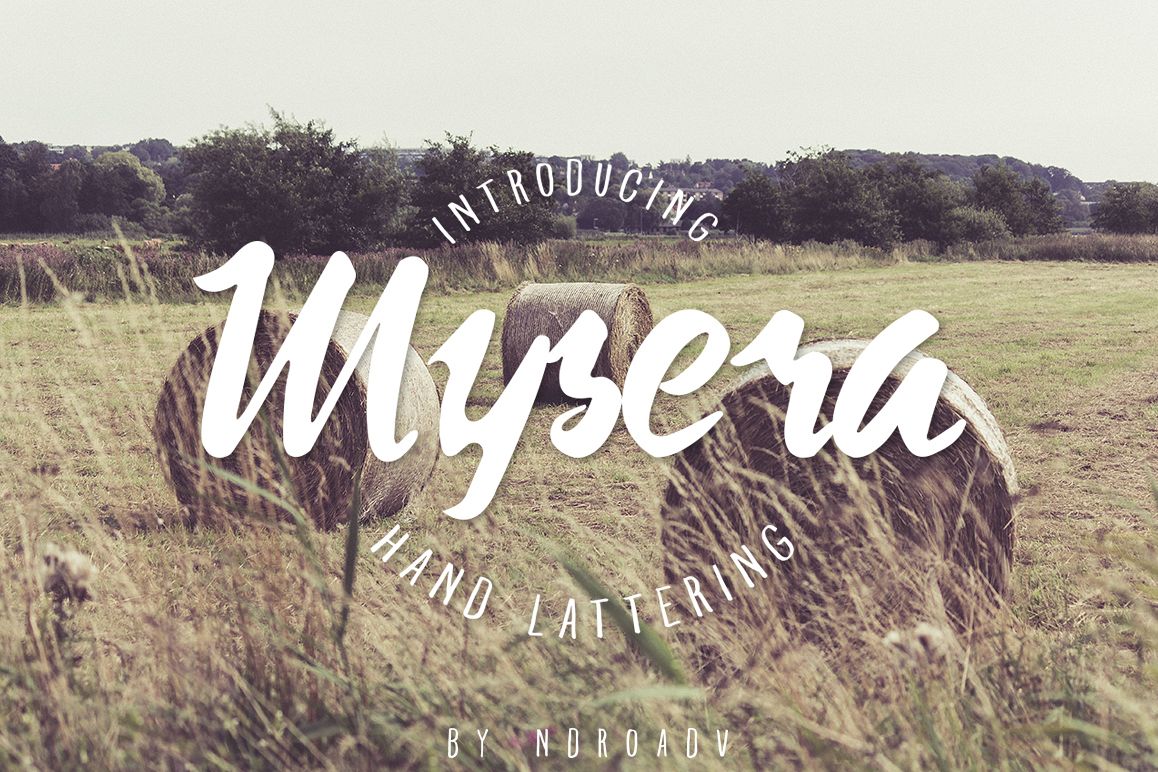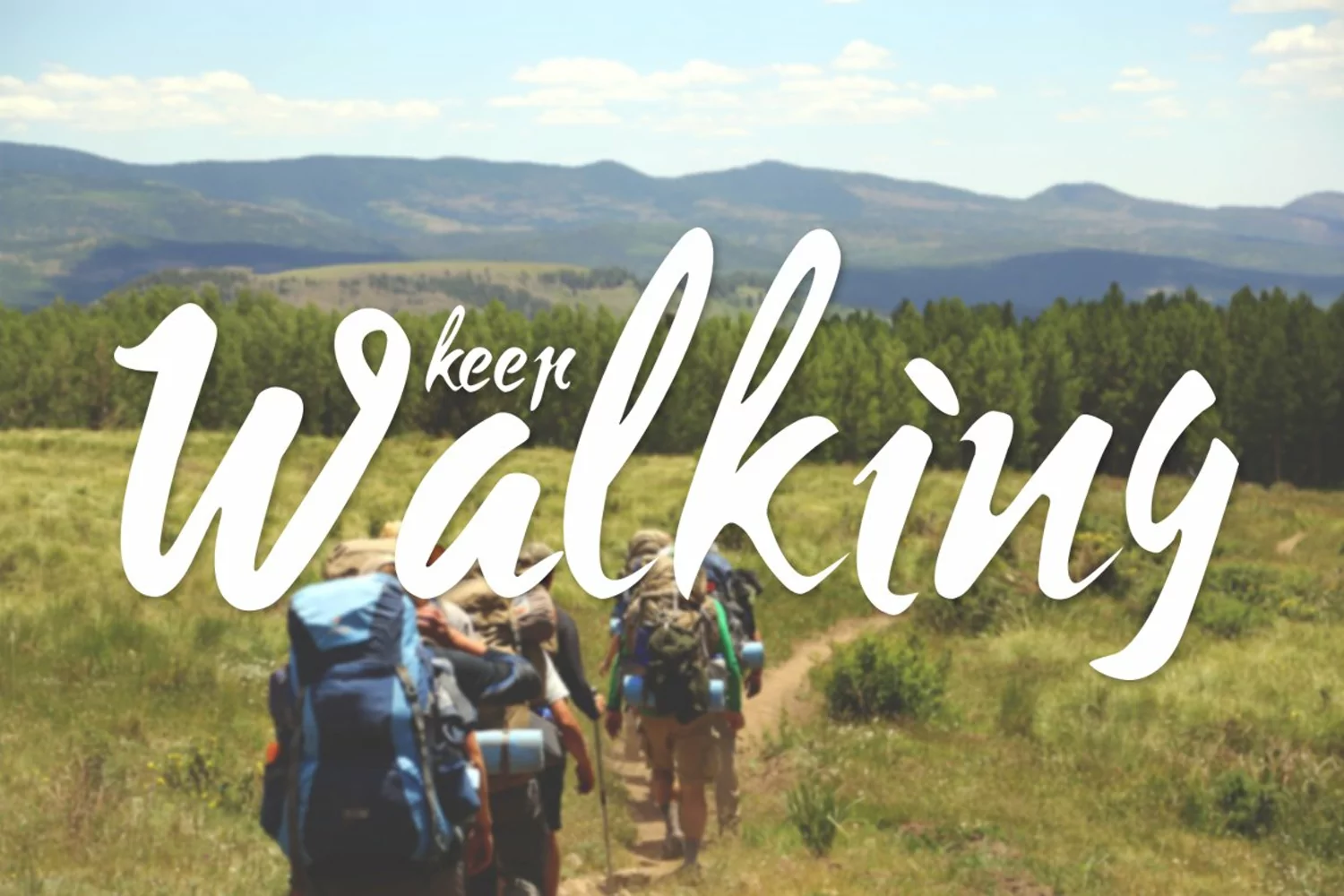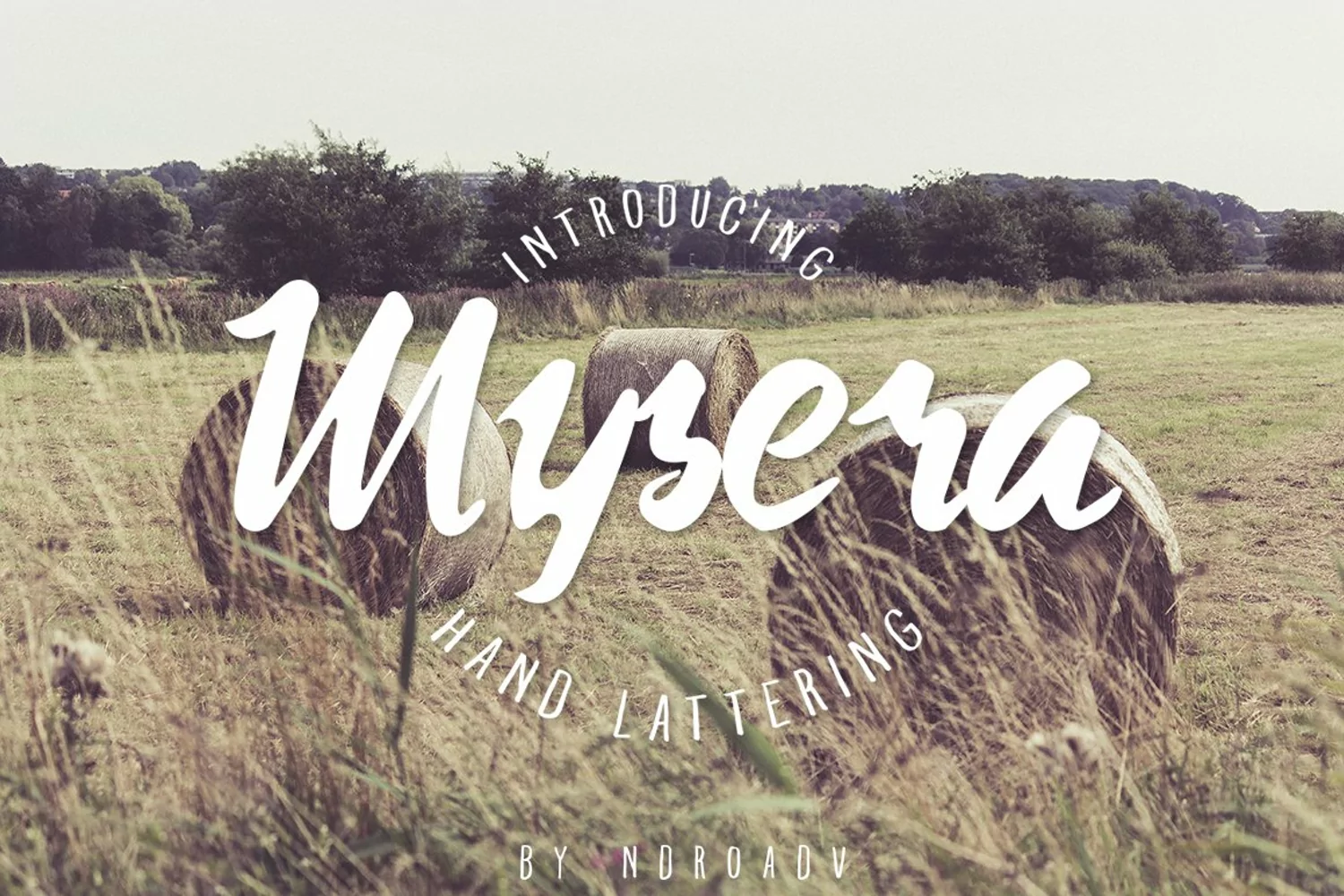
Mysera a new handmade typeface. Designed with a brush pen and this good for project like a adventure, cover design, traveling, poster, quotes, headlines, logo, t-shirt. It comes with Uppercase, Lowercase, Numbers, Punctuations, Currency, Multilingual characters.